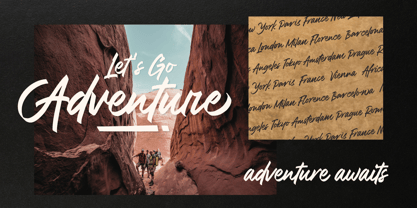
Rollingdeep
by Jinan Studio
The Rollingdeep Font Family was designed by Ainun Jinan and published by Jinan Studio. Rollingdeep contains 1 styles. More about this family
Introducing Rollingdeep, is a stylish and bold script font that marries exquisite ligatures and captivating swashes, and many alternate options, giving you the power to infuse your designs with a captivating and distinct visual identity. Suitable for promotional material, quotes, product packaging, and branding projects.
Jinan Studio, founded by Ainun Jinan, is a font studio based in Makassar City, Indonesia. With a focus on handmade typography. With three years of experience, the studio creates unique, visually captivating, and expressive fonts that can be used in various design projects. Their commitment to craftsmanship and attention to detail sets them apart, while their personalized approach and dedication to customer satisfaction make them a reliable choice for clients.